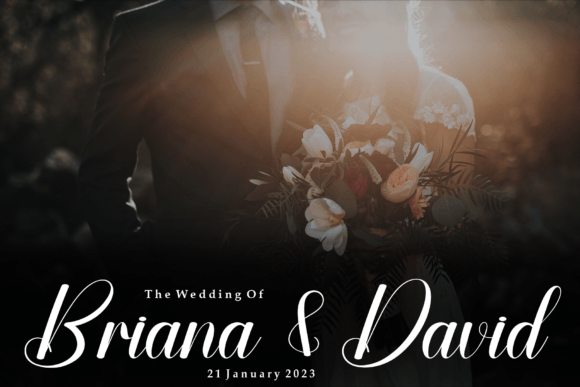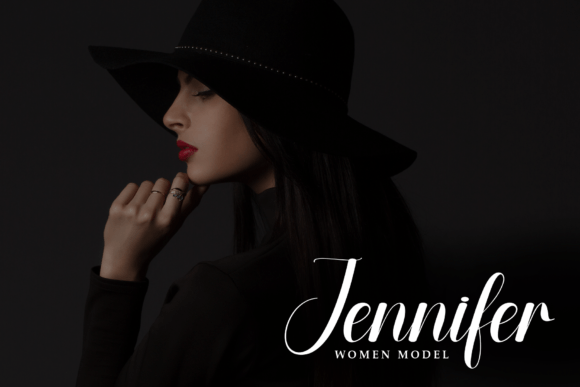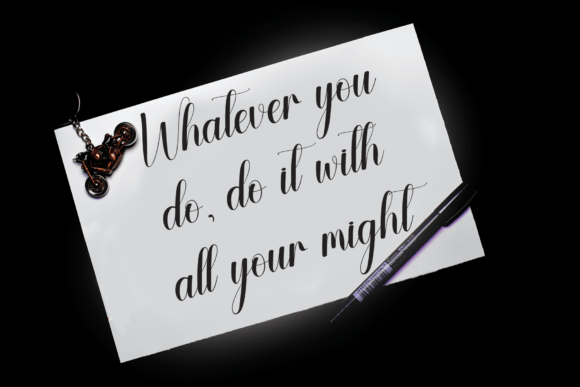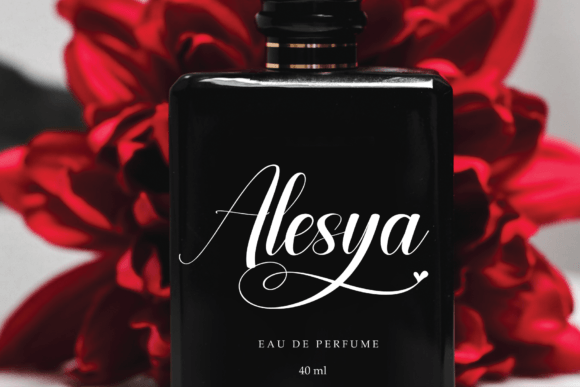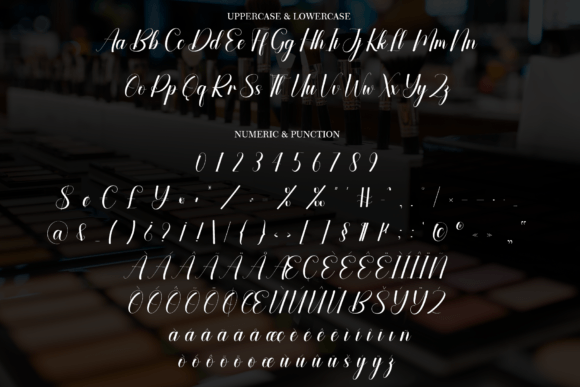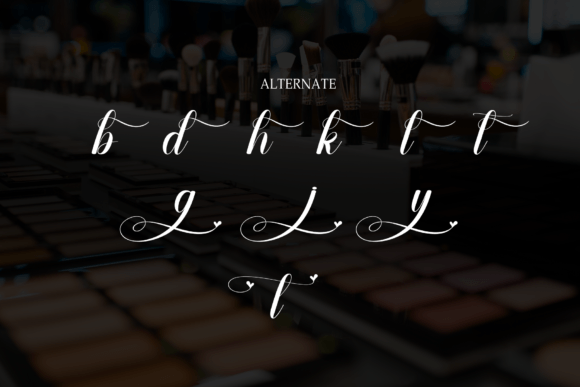
Introducing Beautyshop Font: The Sweet and Friendly Handwritten Font for Your Design Needs
Are you a designer or crafter looking for a font that can add a touch of sweetness and friendliness to your designs? Look no further than Beautyshop Font! This beautiful handwritten font is perfect for creating wedding invitations, cards, and other designs that require a lovely and personal touch.
What Makes Beautyshop Font Special?
Beautyshop Font is a fresh and casual font that is designed to bring a sense of warmth and approachability to your designs. Its sweet and friendly style makes it ideal for a variety of projects, from wedding invitations and cards to branding and packaging. With its elegant and flowing script, Beautyshop Font is sure to add a touch of sophistication and charm to any design.
Key Features of Beautyshop Font
- Sweet and Friendly Style: Beautyshop Font has a unique and charming style that is perfect for creating designs that require a personal touch.
- Fresh and Casual: This font is designed to be fresh and casual, making it perfect for a variety of design projects.
- Handwritten Script: Beautyshop Font has a beautiful handwritten script that adds a touch of elegance and sophistication to any design.
- Easy to Read: Despite its elegant style, Beautyshop Font is easy to read, making it perfect for body text and other applications where readability is important.
Uses for Beautyshop Font
Beautyshop Font is a versatile font that can be used for a variety of design projects. Here are some ideas to get you started:
- Wedding Invitations: Beautyshop Font is perfect for creating beautiful and elegant wedding invitations that set the tone for a special day.
- Cards and Stationery: This font is ideal for creating cards, stationery, and other paper goods that require a personal touch.
- Branding and Packaging: Beautyshop Font can be used to create beautiful and eye-catching branding and packaging that stands out from the crowd.
- Social Media Graphics: This font is perfect for creating social media graphics, such as Facebook posts and Instagram stories, that require a personal and stylish touch.
Tips for Using Beautyshop Font
Here are some tips for getting the most out of Beautyshop Font:
- Use it with a Simple Background: Beautyshop Font looks best with a simple background that doesn’t compete with the font’s elegant style.
- Experiment with Colors: This font looks great in a variety of colors, so don’t be afraid to experiment and find the perfect color for your design.
- Pair it with Other Fonts: Beautyshop Font can be paired with other fonts to create a unique and stylish look.
Beautyshop Font is a beautiful and versatile font that is perfect for designers and crafters who want to add a touch of sweetness and friendliness to their designs. With its fresh and casual style, elegant handwritten script, and ease of use, Beautyshop Font is sure to become a favorite in your design toolkit. So why wait? Download Beautyshop Font today and start creating beautiful designs that capture the heart!